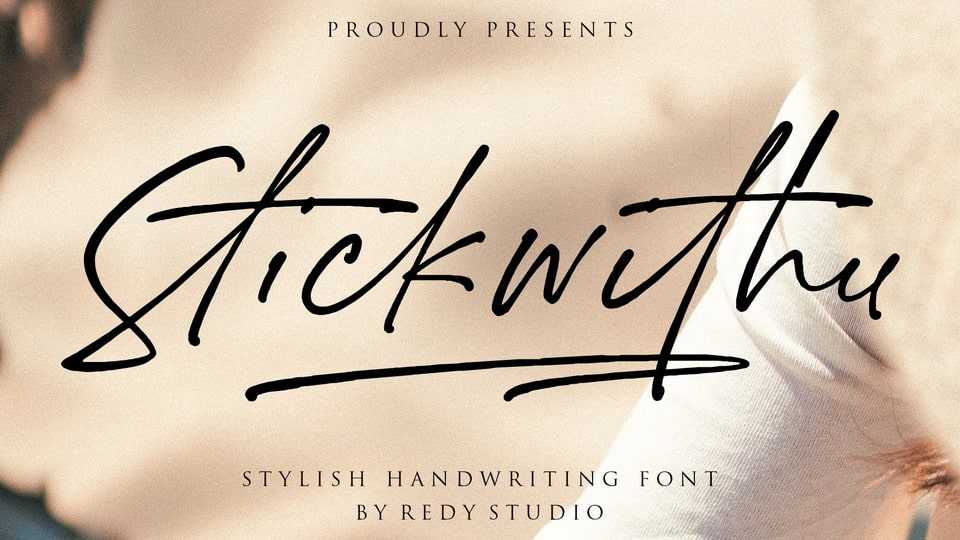
Download Stickwithu font, a simple yet modern handwritten typeface that’s perfect for adding personality to your typographic design. Stickwithu has been designed to make any project look like it was handwritten by hand.